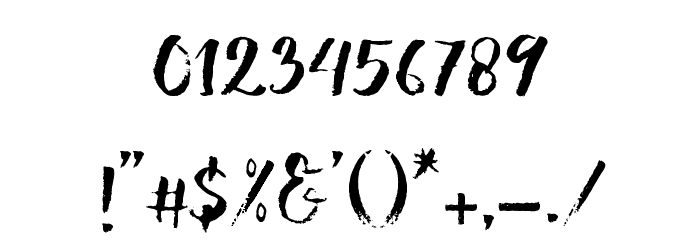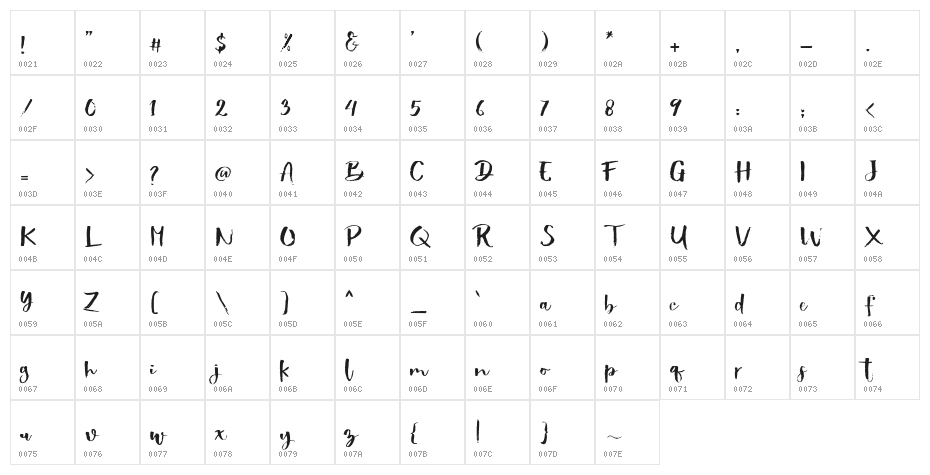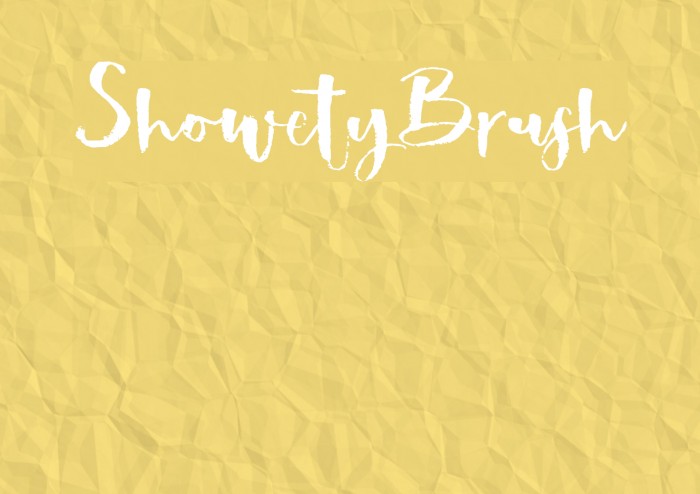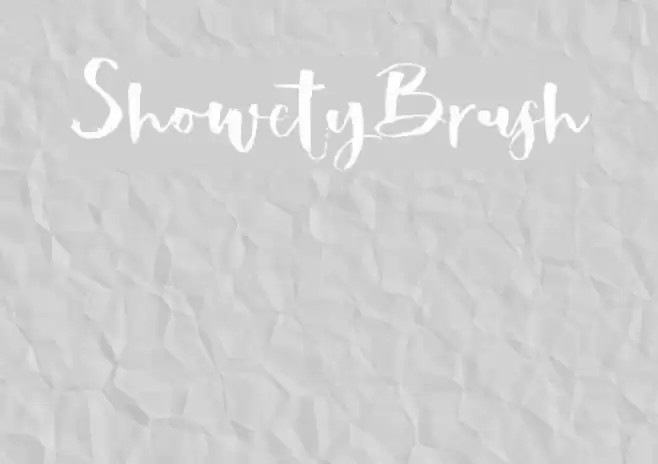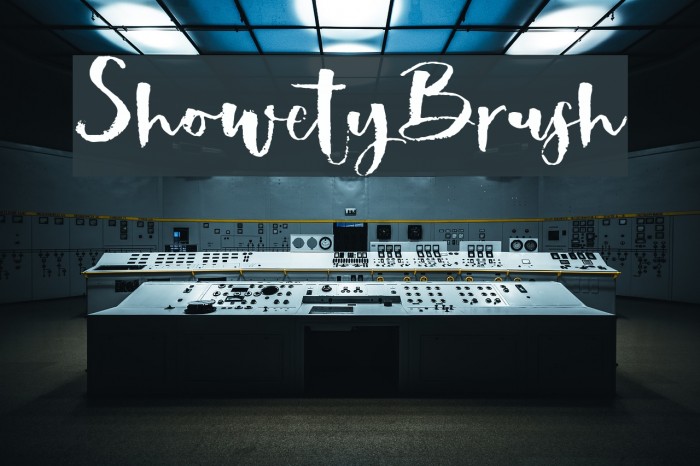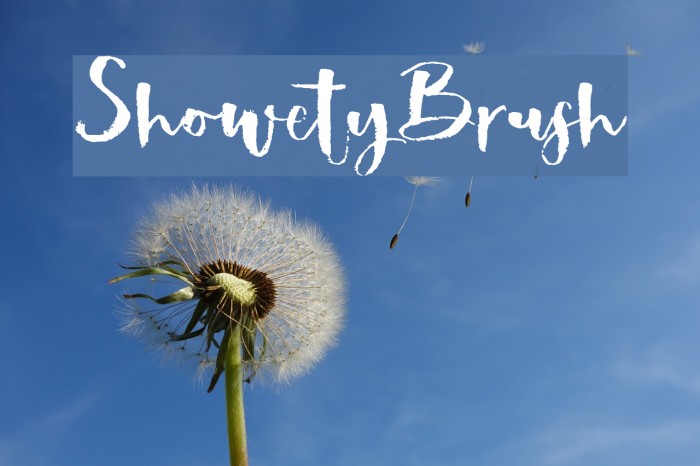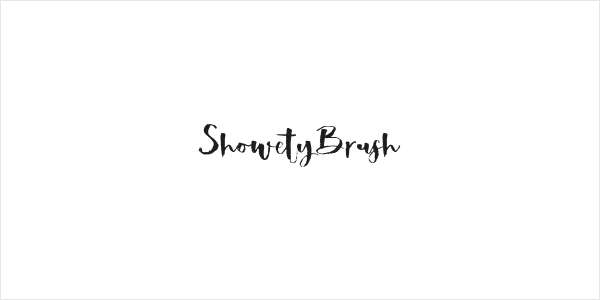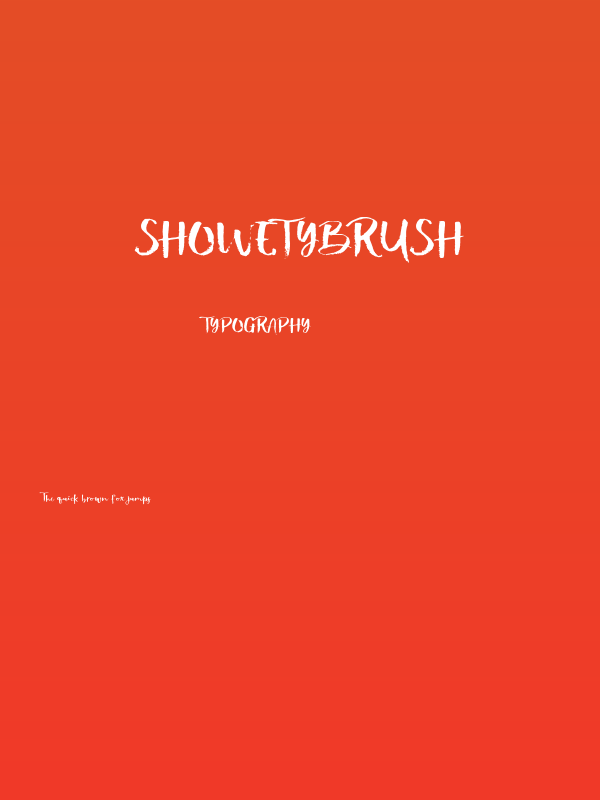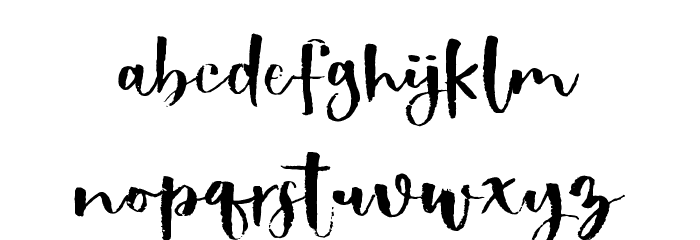
ShowetyBrush Font
ShowetyBrush Description
This font features a dynamic and expressive brush style, characterized by its bold and fluid strokes. The letters exhibit a hand-painted appearance, with varying thicknesses that add a sense of movement and energy. The uppercase letters are bold and commanding, while the lowercase letters maintain a playful and artistic flair. The numbers and special characters follow the same brush-like aesthetic, ensuring consistency across all glyphs. This font is ideal for projects that require a personal and artistic touch, such as invitations, posters, and branding materials.
| Proposed Projects | Ideal for invitations, posters, branding materials, and any project requiring an artistic touch. |